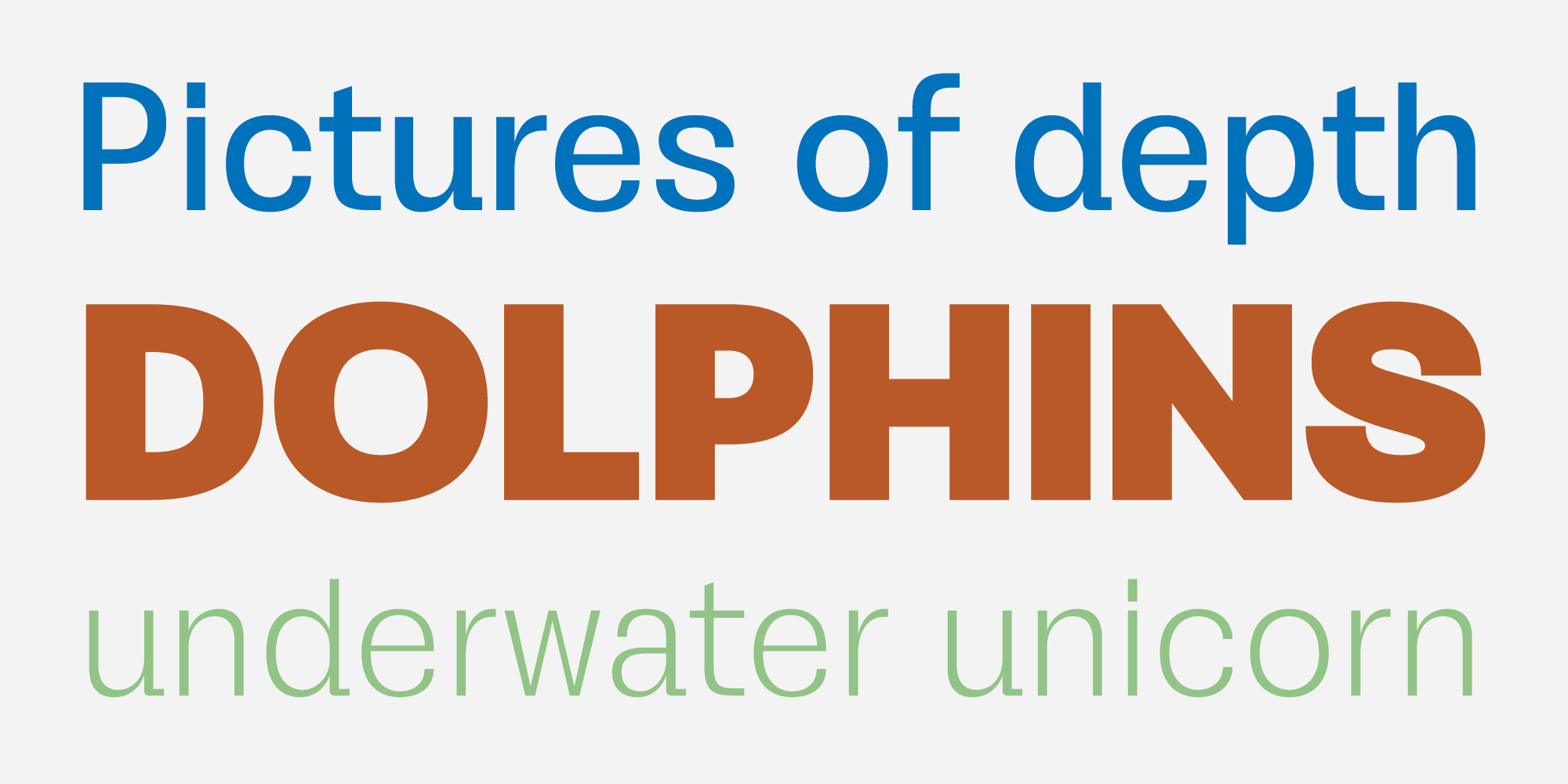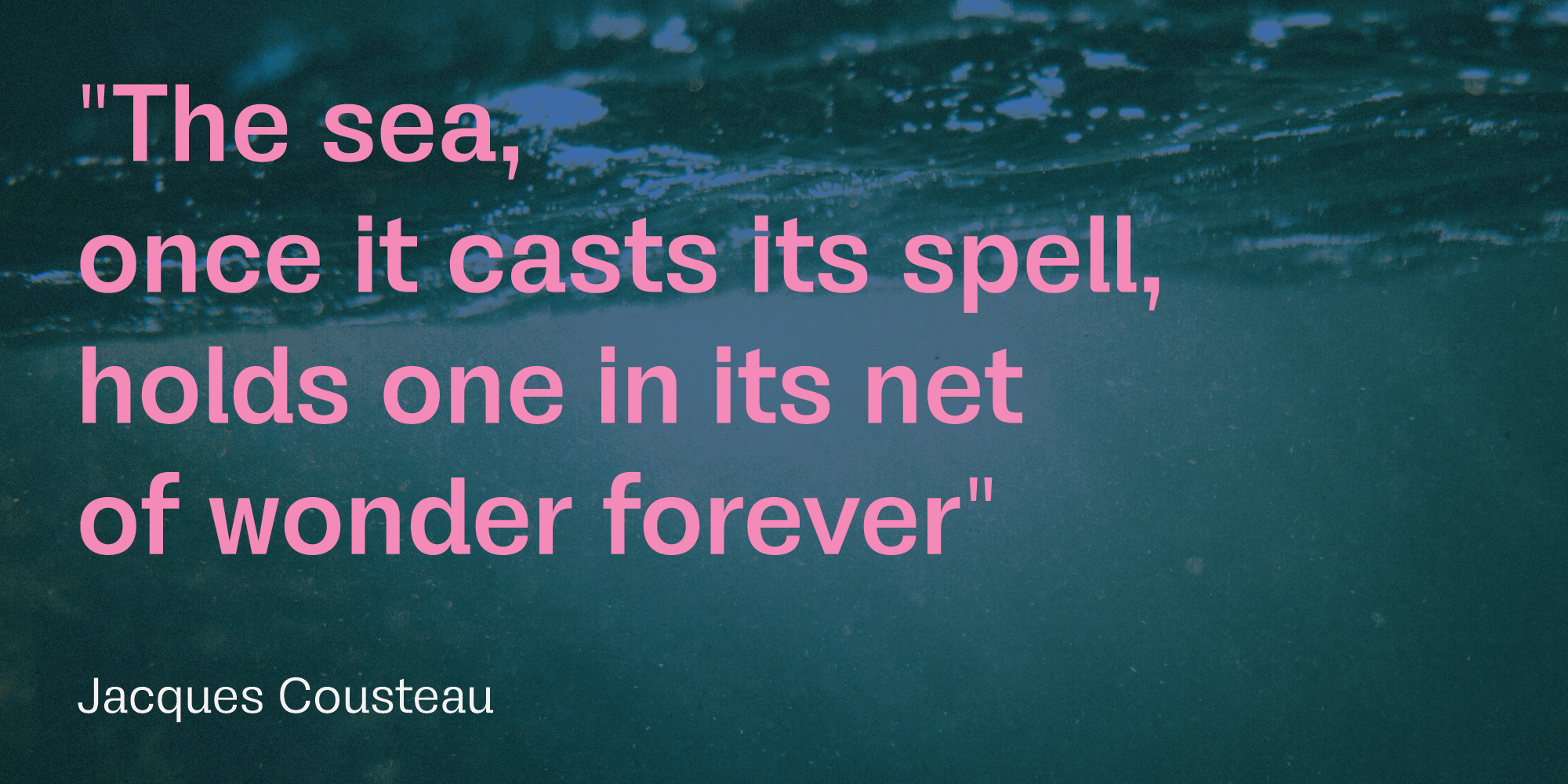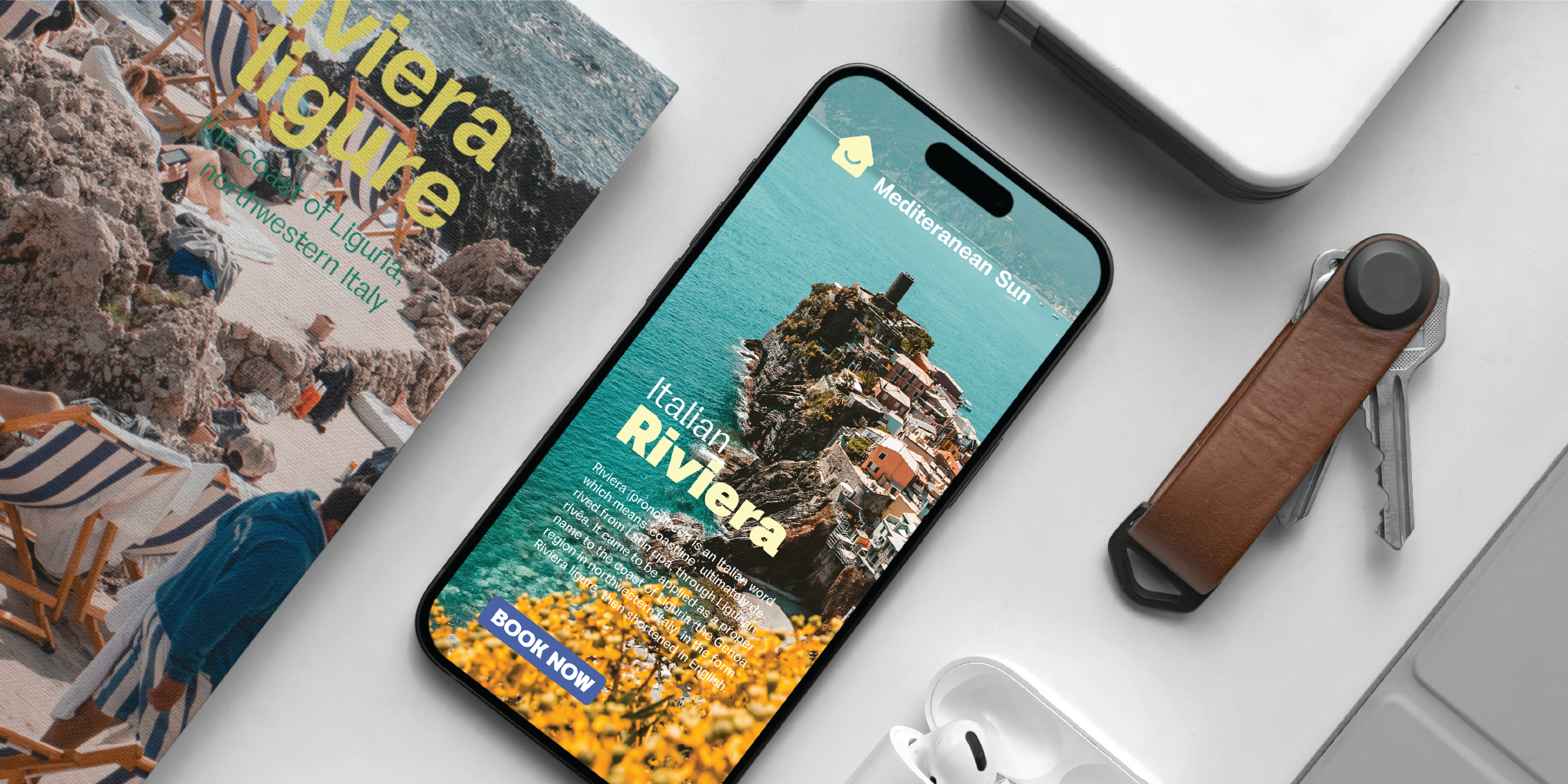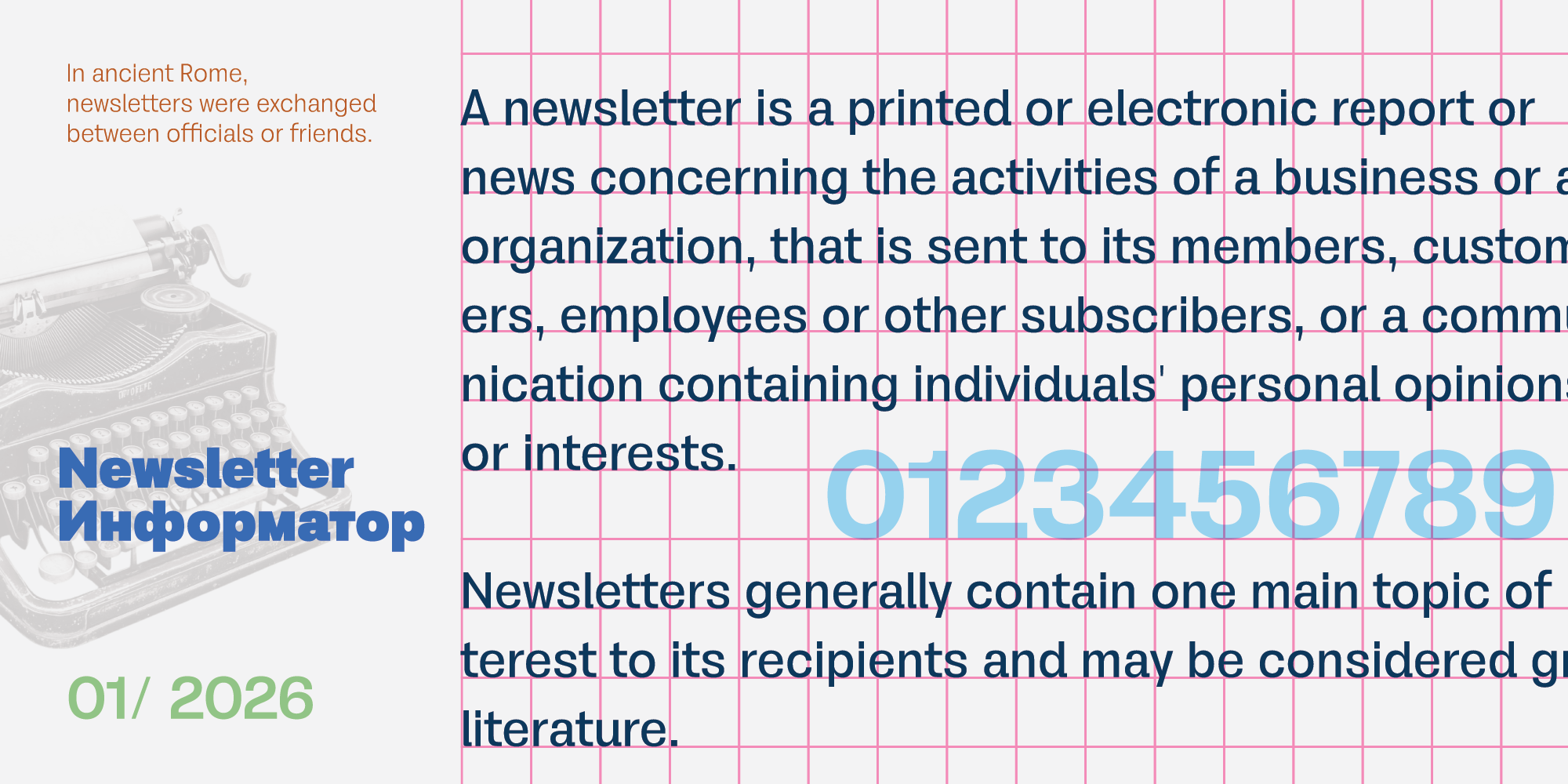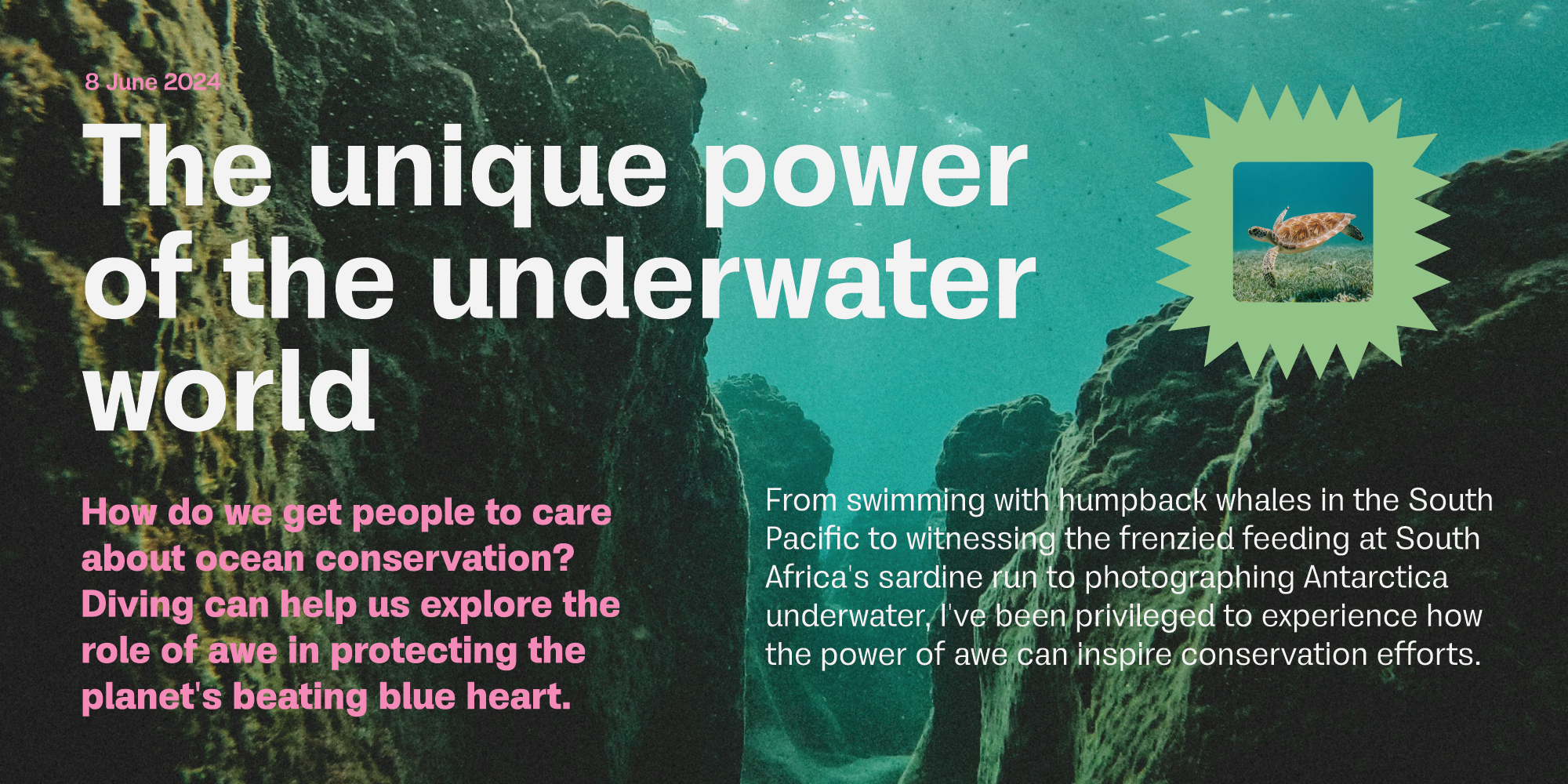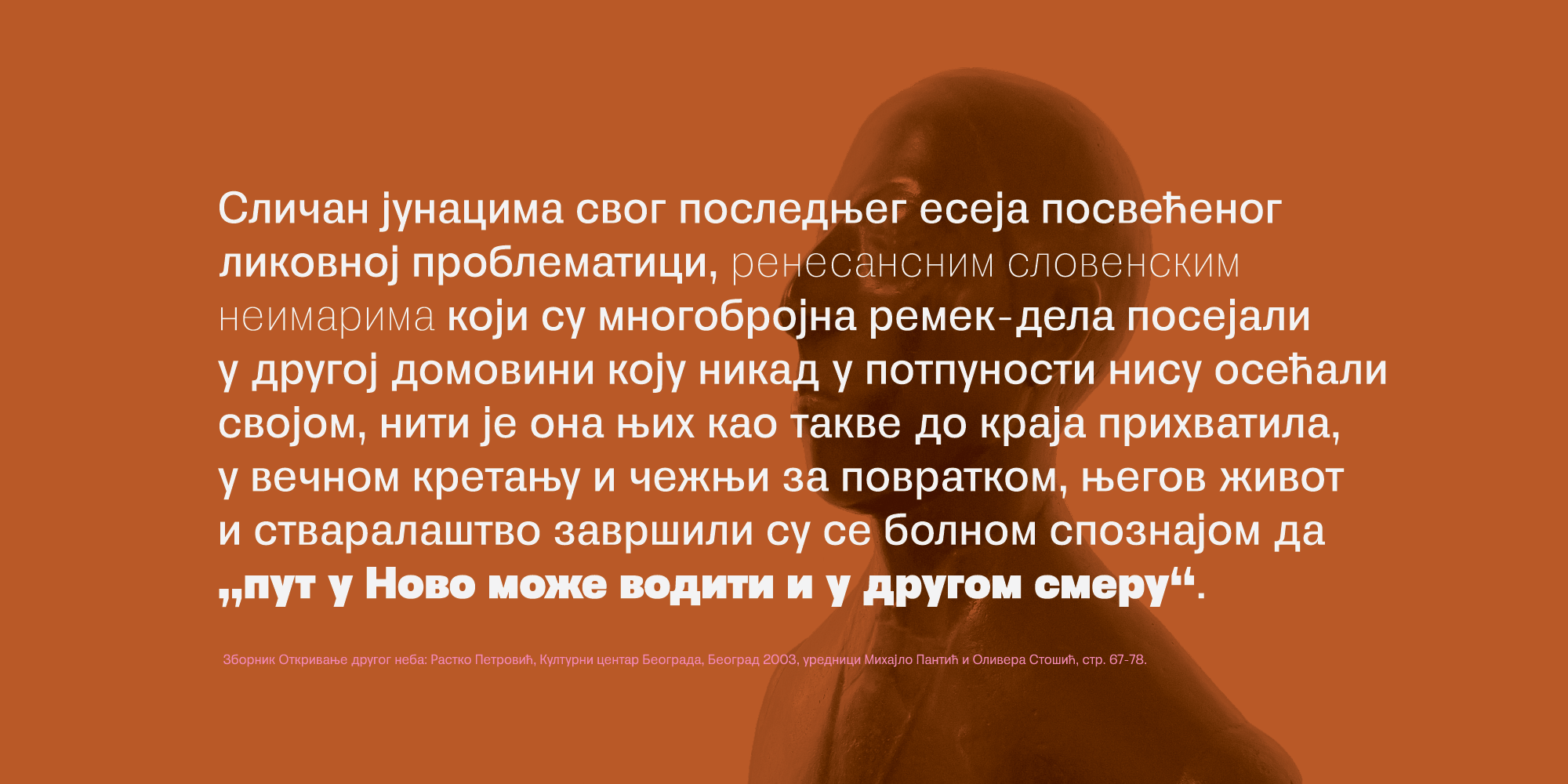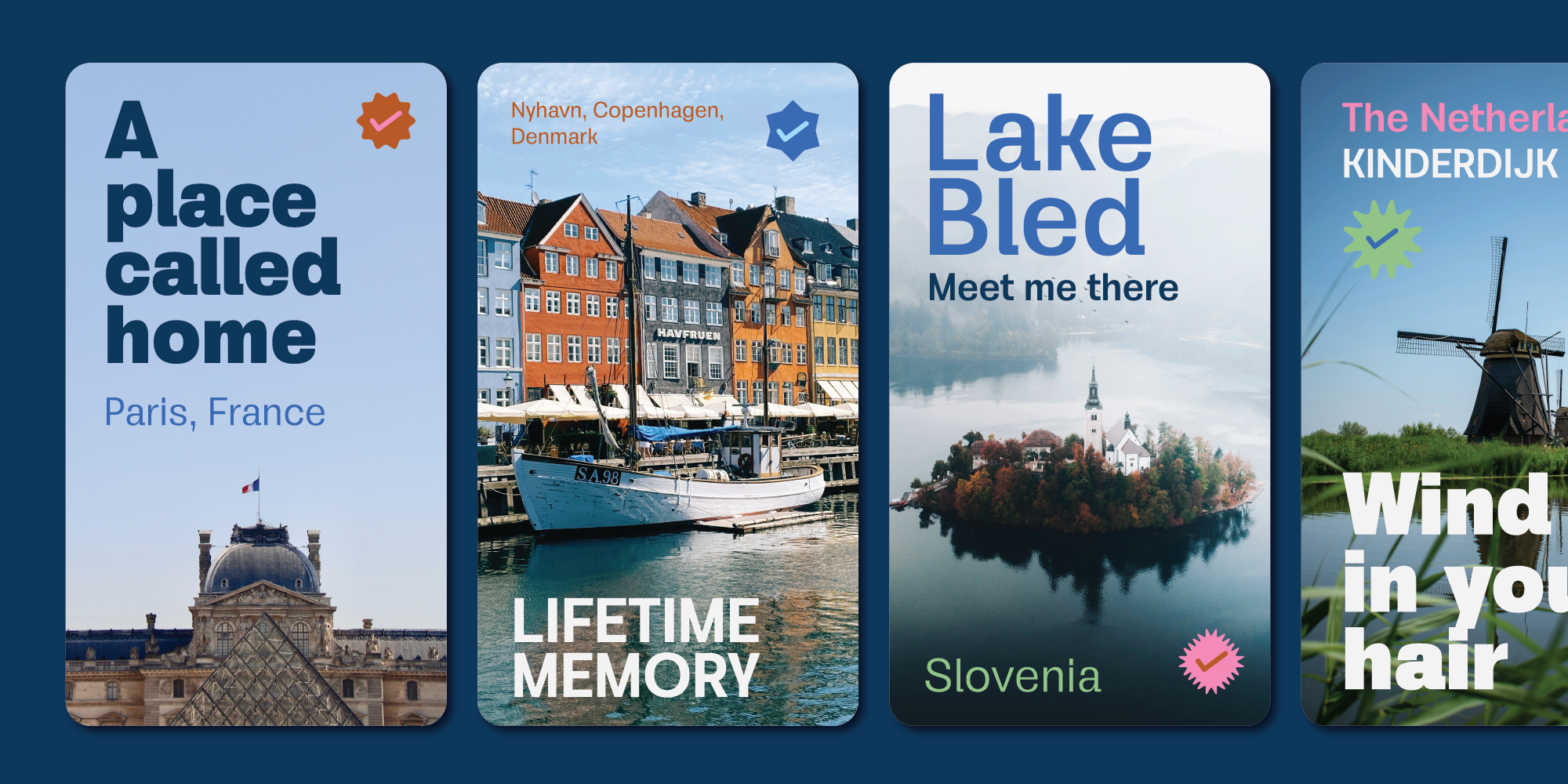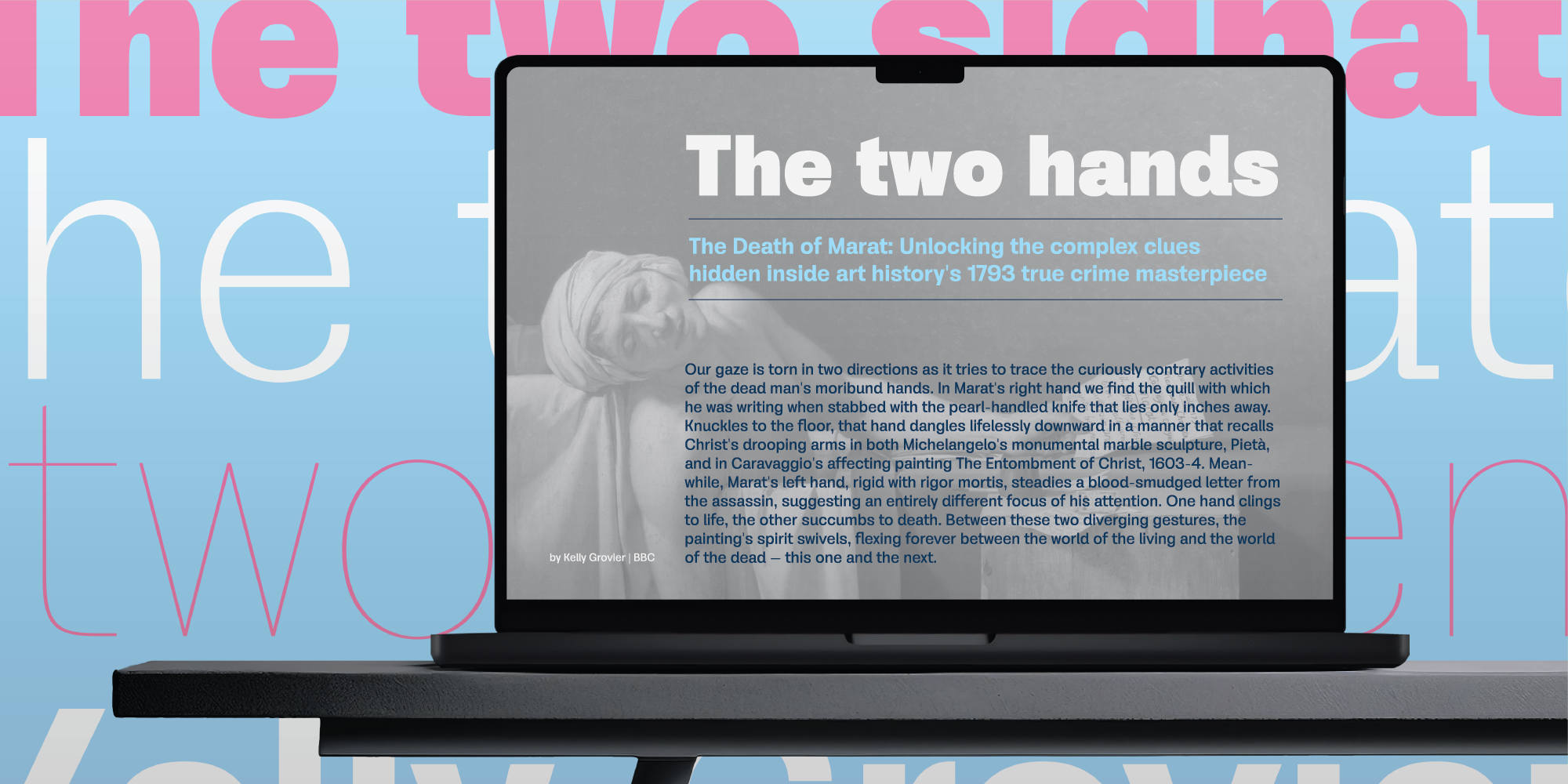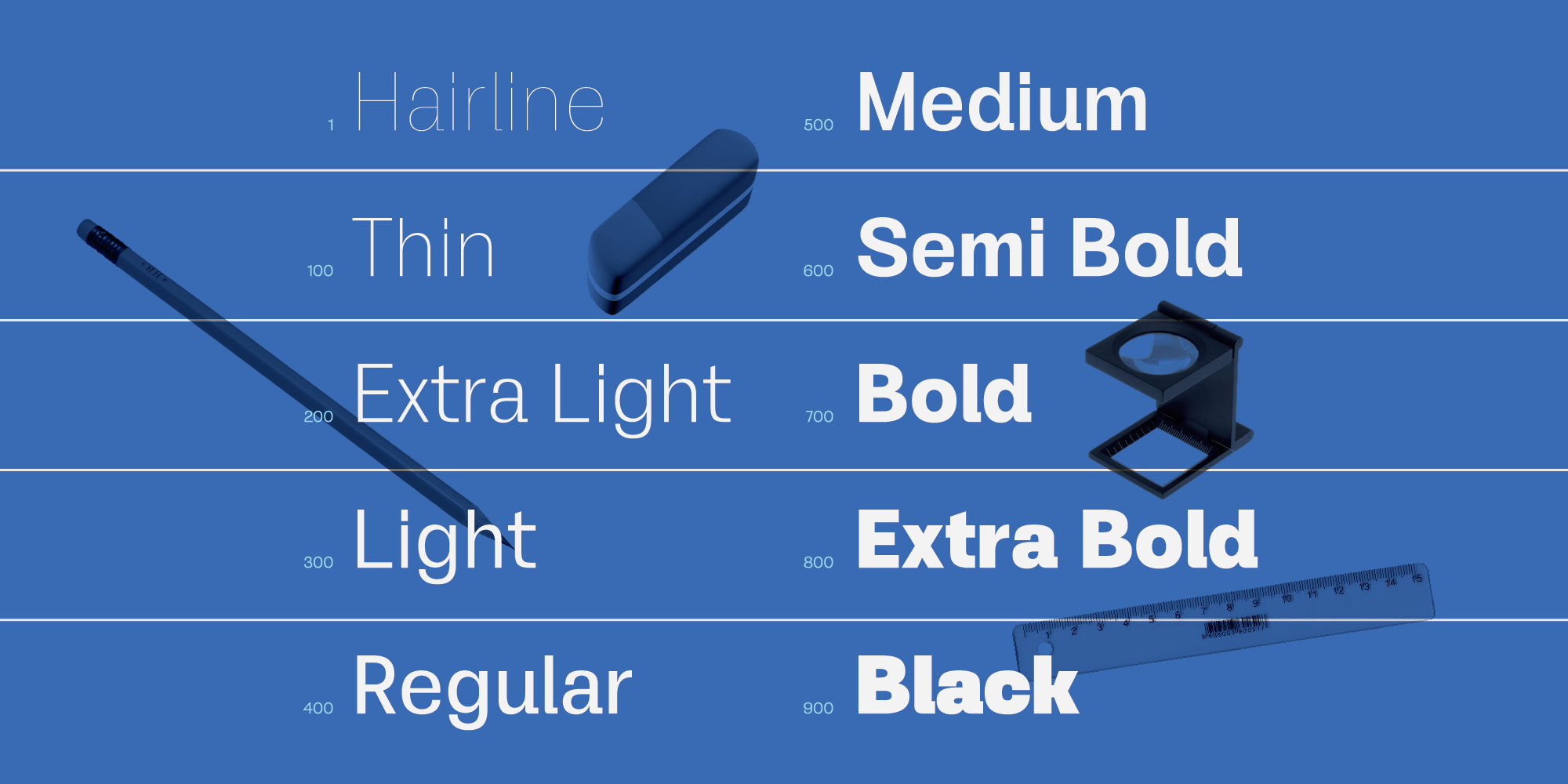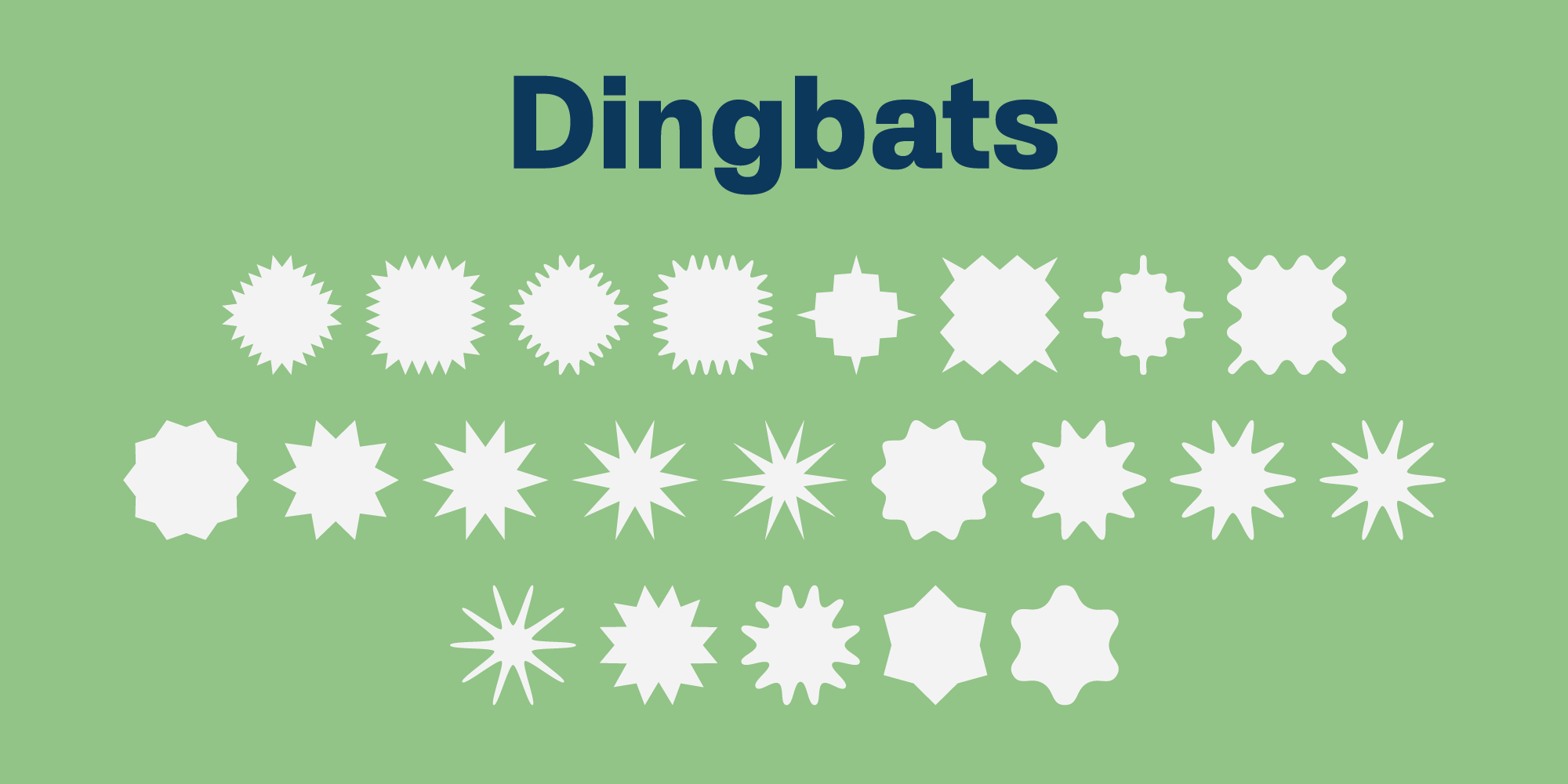
Oceanis is neo-grotesque font family available in 10 weights. It's been crafted following traditional manners of classics such as Helvetica and Arial, but with our own touch.
It is imagined as a working horse font family – to fit into every project. By characteristic of belonging font category, Oceanis is neutral, compact, low contrasted typeface. It is pure sans serif family with wide range of weights – from very light Hairline to dark Black.
Oceanis comes with Standard Ligatures, Fractions, Ordinals, Tabular Figures, Superscript and Subscript as OpenType features. Beside Extended Latin language coverage, Oceanis support Cyrillic languages as well.